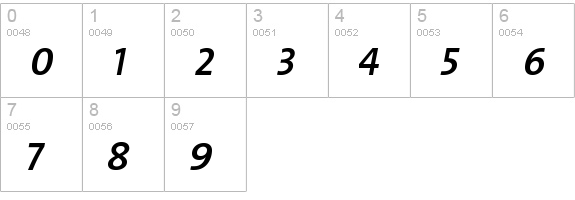
TheMix SemiBold Caps Italic is a sub-bold, structured, italic variant in the TheMix typeface family \xE2\x80\x94 well suited to sub-headlines and emphasised passages.
TheMix SemiBold Caps Italic font is a perfect blend of elegance and modernity. Its semi-bold weight adds a touch of boldness, while the capital letters give it a sophisticated look. The italic style lends a sense of movement and dynamism, making it ideal for projects that require a dash of creativity. This font's versatility is unmatched, as it effortlessly suits various design purposes. Whether you are working on a logo, branding materials, headings, or even body text, TheMix SemiBold Caps Italic font will elevate your designs to new heights. One of the best things about this font is that it is freely available to download at FontsMarket.com. You can easily access and enjoy the benefits of this exceptional typeface without any cost. TheMix SemiBold Caps Italic font allows you to bring your design visions to life without breaking the bank. With its clean and crisp lines, TheMix SemiBold Caps Italic font ensures legibility and readability across different mediums. Its distinctive style will captivate your audience and leave a lasting impression. Whether you are designing for print or web, this font guarantees a professional and polished finish. Don't miss the opportunity to enhance your design projects with TheMix SemiBold Caps Italic font. Download it for free at FontsMarket.com and experience the beauty and versatility of this remarkable typeface.